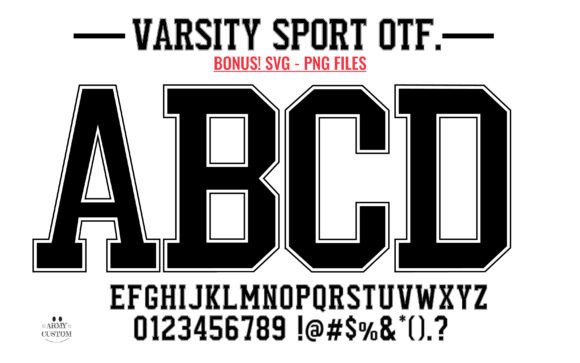
Varsity Sport Army Font
Immerse yourself in the collegiate spirit with Varsity Sport Army! A premium university-style font that beautifully captures the thrilling arena of athletics and academia. Ideal for passionate sports enthusiasts and devoted college fans, this high-quality design truly embodies the vibrant energy and community spirit synonymous with school and university leagues. With Varsity Sport, every letter is a nod towards the rush of the big game, the cheer of the crowd, and the nostalgia of those unforgettable university moments.